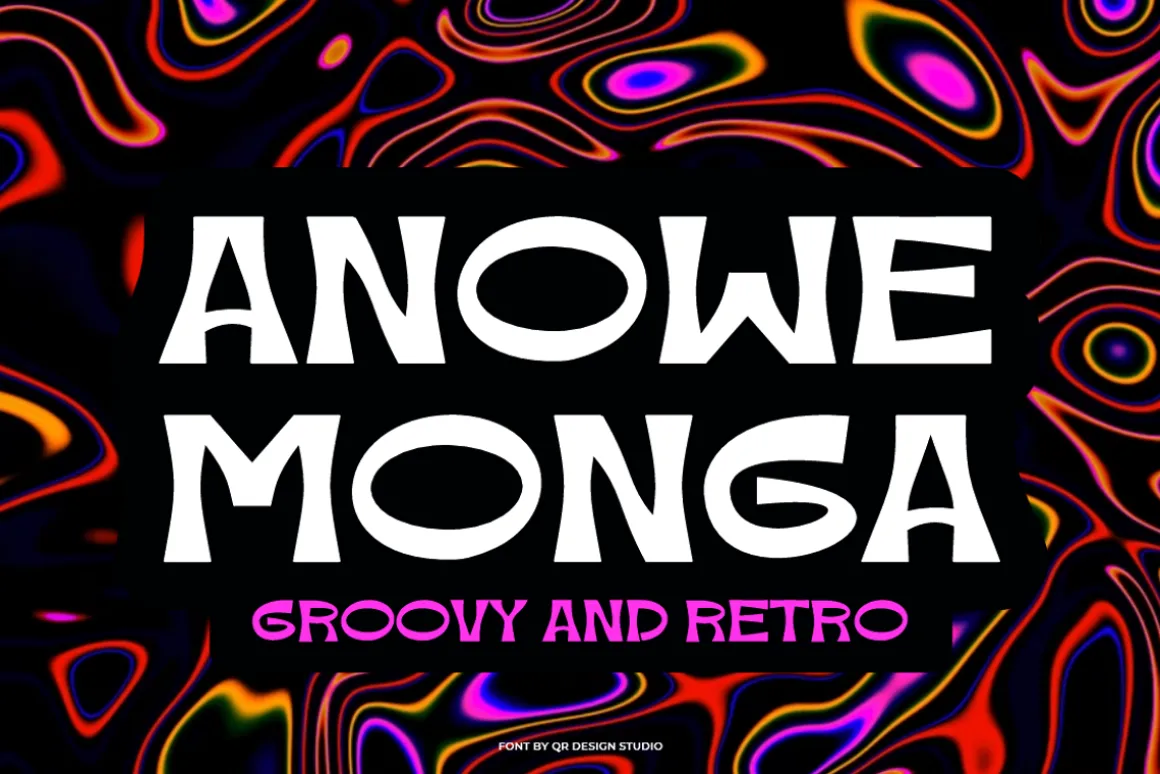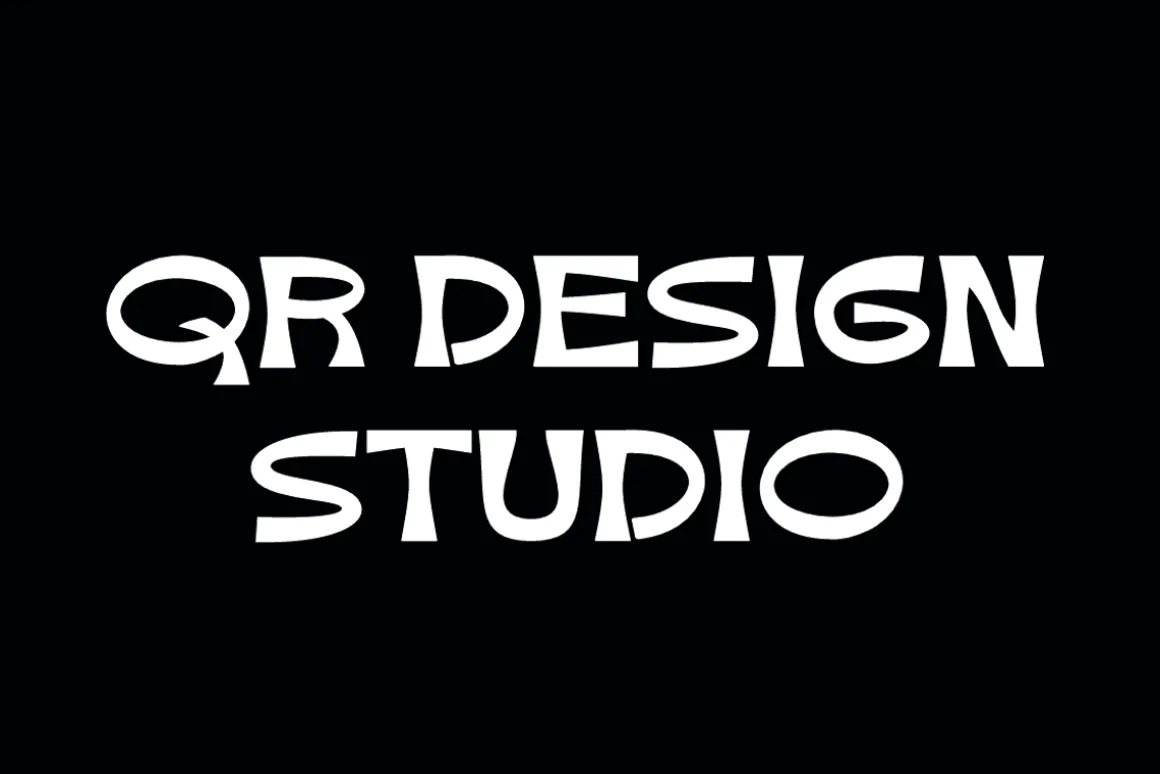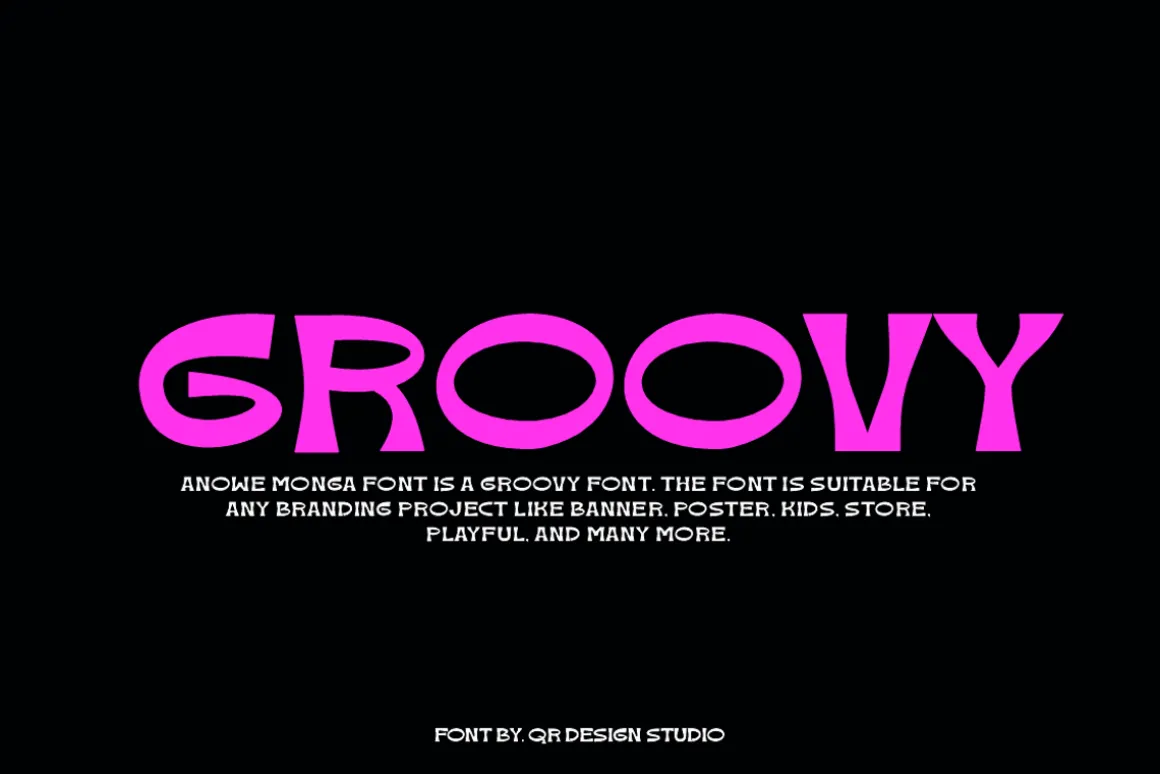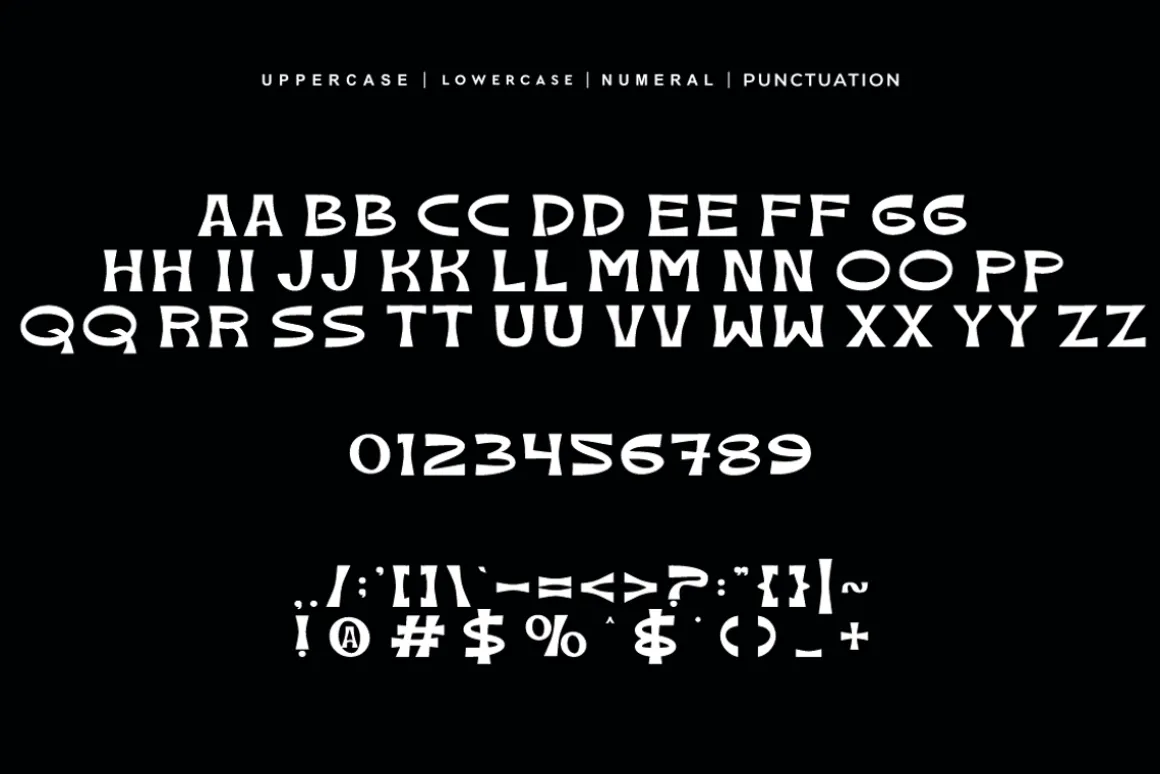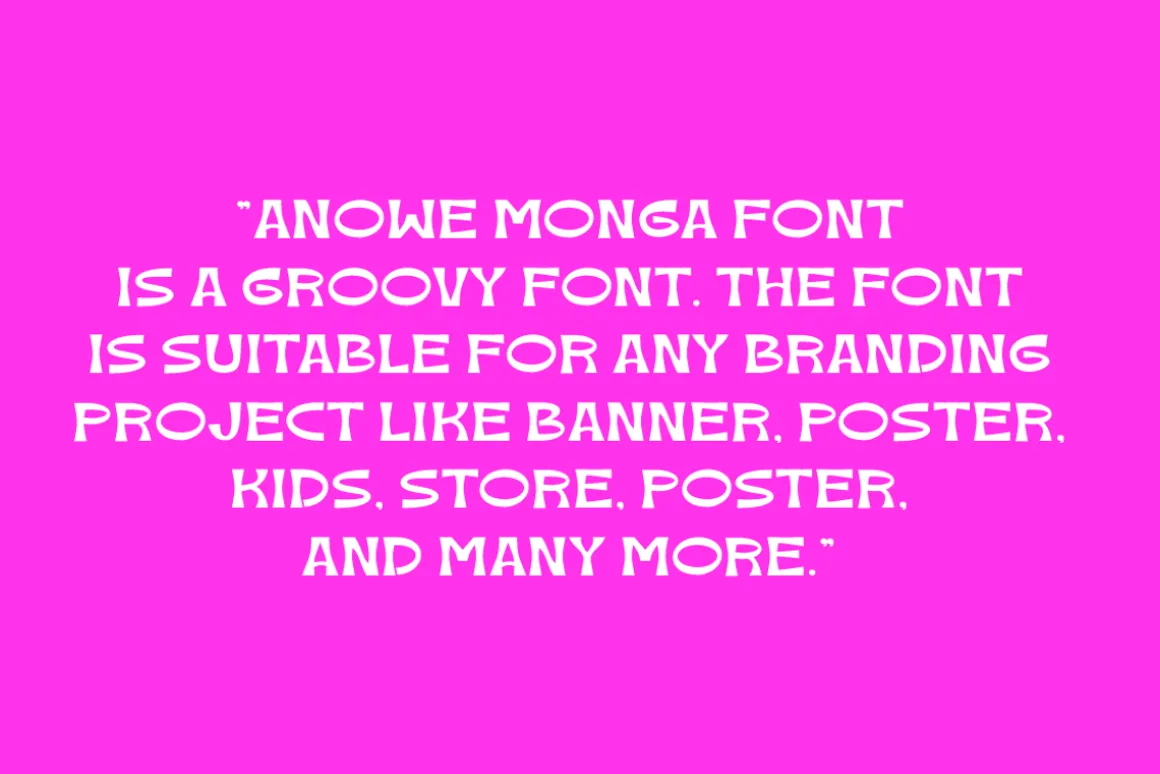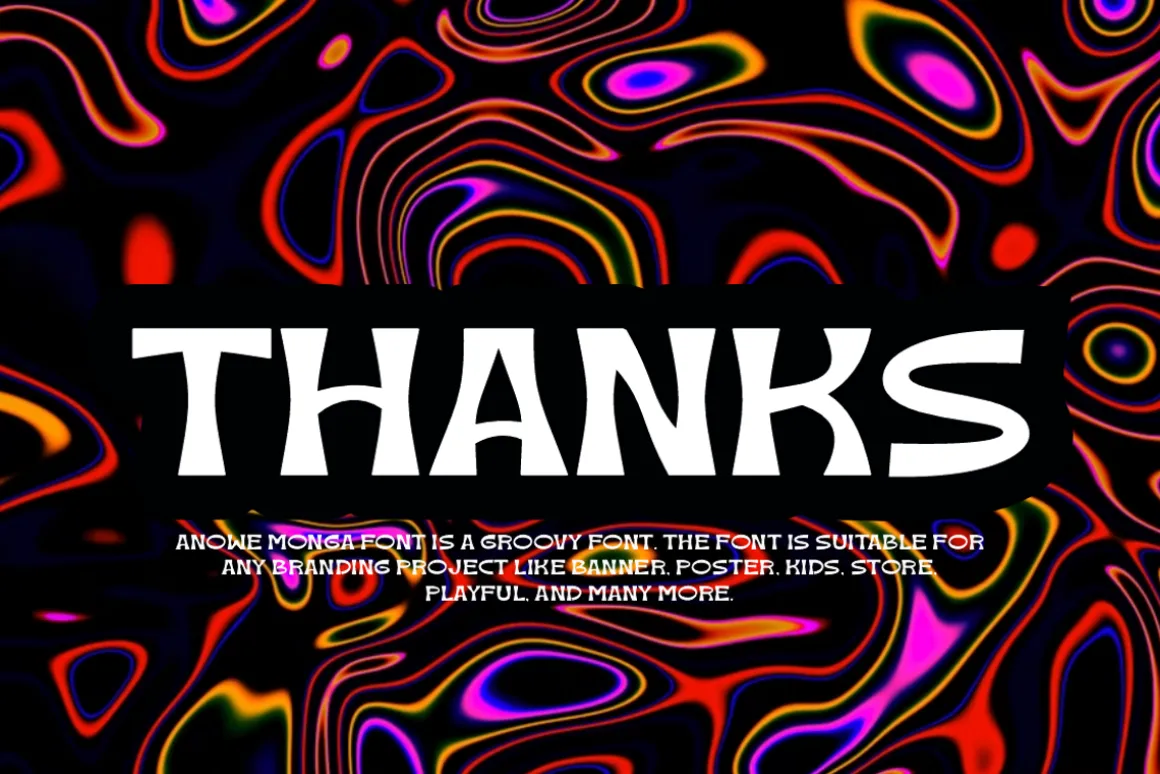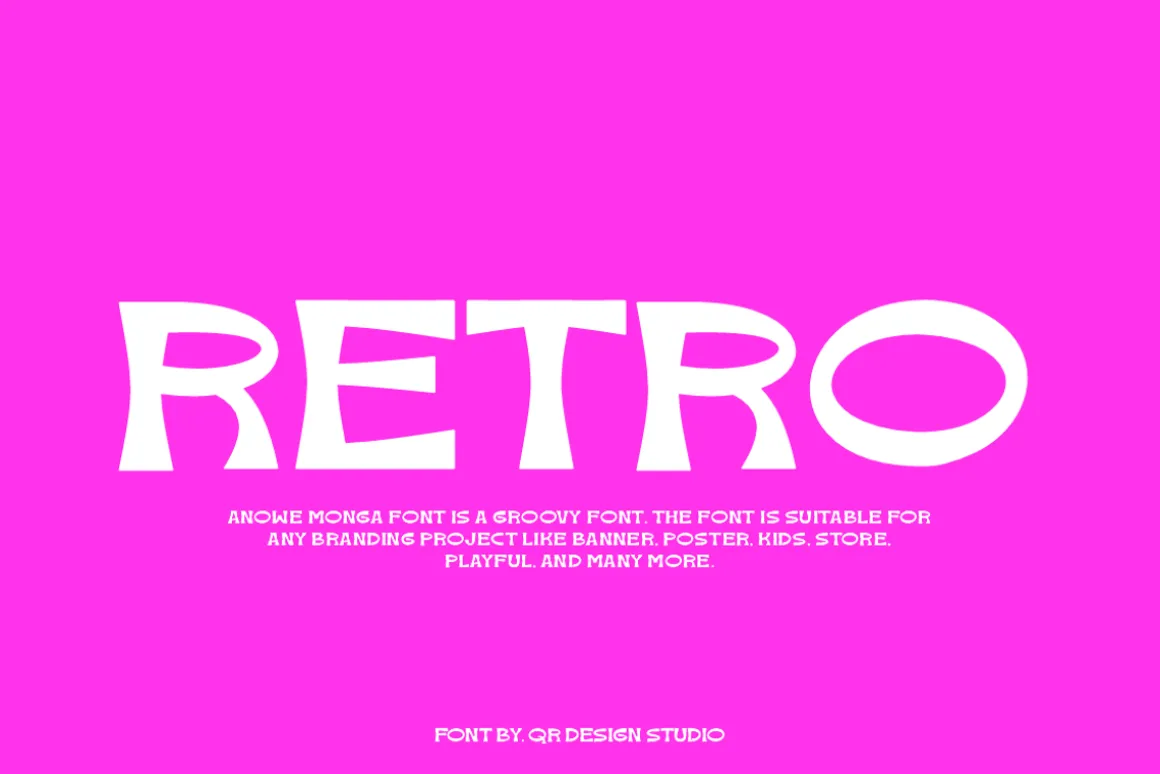
Anowe Monga Font is a groovy and authentic display font.The font is suitable for any branding project like poster, logo, playful, and many more.Outstanding in a wide range of contexts.